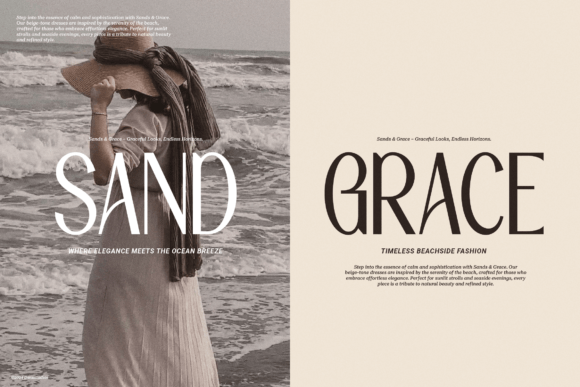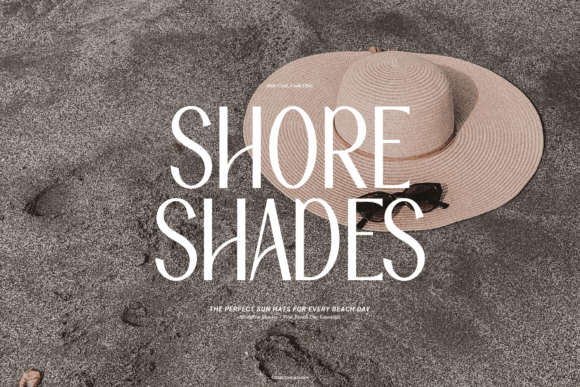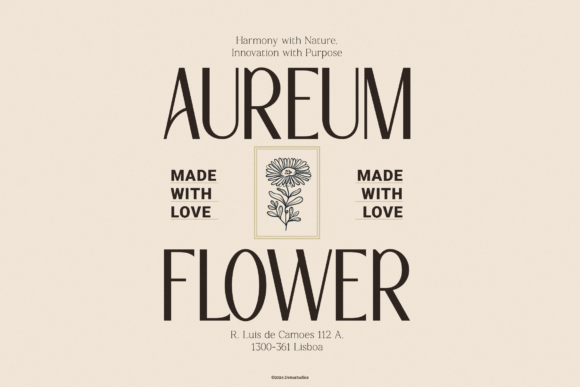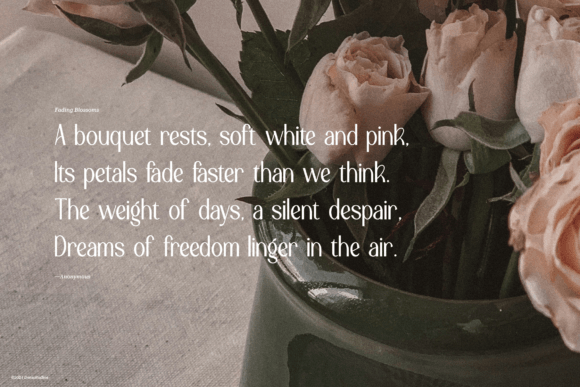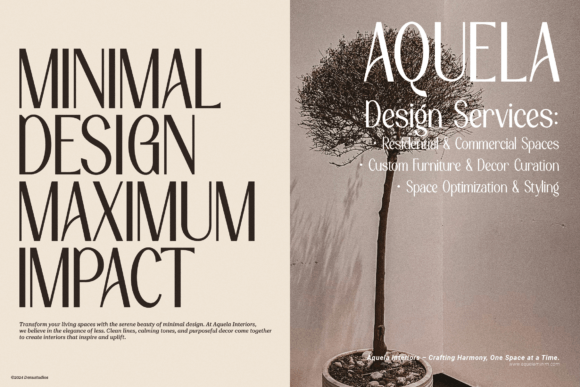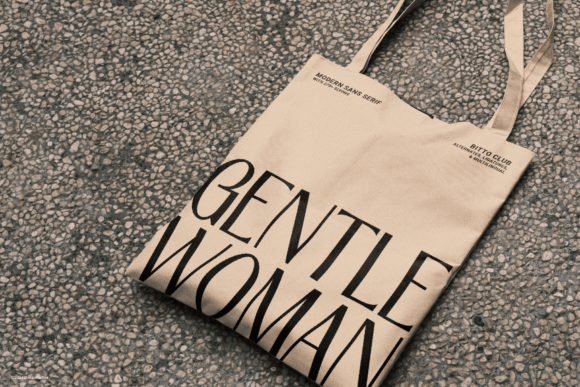
Introducing Bitto Club Font: Elevate Your Designs with Modern Elegance
In the world of typography, a font can make all the difference in elevating a design from ordinary to extraordinary. For designers and crafters seeking a sophisticated and versatile typeface, Bitto Club Font is an exceptional choice. This refined sans serif font is crafted to bring a touch of modern elegance to a wide range of projects, from branding and editorial layouts to logos and fashion designs.
A Refined Sans Serif Typeface
Bitto Club Font boasts a sleek and contemporary design, characterized by clean lines and a unique flair. Its sans serif style ensures a crisp and modern look, making it perfect for designs that require a touch of sophistication. The font’s refined aesthetic is suitable for upscale designs, adding a level of elegance that sets it apart from more generic typefaces.
One of the standout features of Bitto Club Font is its versatility. With over 270 glyphs, ligatures, alternates, and multilingual support, this font offers a wide range of creative possibilities. Whether working on branding projects, editorial layouts, logos, or fashion designs, Bitto Club Font adapts seamlessly, ensuring a consistent and stylish visual identity.
Key Features of Bitto Club Font
• Over 270 glyphs: Offering a wide range of characters, numbers, and symbols to suit various design needs.
• Ligatures and alternates: Providing creative flexibility and allowing designers to add a personal touch to their work.
• Multilingual support: Enabling designers to create content for diverse audiences and languages.
• Clean lines and unique flair: Giving Bitto Club Font its distinctive, modern aesthetic.
Applications for Bitto Club Font
The versatility of Bitto Club Font makes it suitable for a wide range of applications, including:
• Branding: Create a lasting impression with a sophisticated and memorable brand identity.
• Editorial layouts: Add a touch of elegance to magazines, newspapers, and digital publications.
• Logos: Design professional and stylish logos that stand out.
• Fashion projects: Elevate fashion designs, such as clothing labels, packaging, and marketing materials.
Why Choose Bitto Club Font?
With so many fonts available, why choose Bitto Club Font? Here are a few compelling reasons:
• Unique aesthetic: Bitto Club Font offers a distinctive, modern look that sets it apart from more generic typefaces.
• High level of versatility: With over 270 glyphs and multilingual support, this font adapts to various design needs.
• Ease of use: Bitto Club Font is designed to be user-friendly, making it easy to integrate into designs.
For designers and crafters seeking a refined and versatile typeface, Bitto Club Font is an exceptional choice. Its modern elegance, clean lines, and unique flair make it perfect for a wide range of projects, from branding and editorial layouts to logos and fashion designs. With its high level of versatility, ease of use, and distinctive aesthetic, Bitto Club Font is sure to elevate designs to new heights.
Embrace modern elegance with Bitto Club Font and discover a world of creative possibilities. Whether working on a personal project or a client’s design brief, this font is sure to impress.